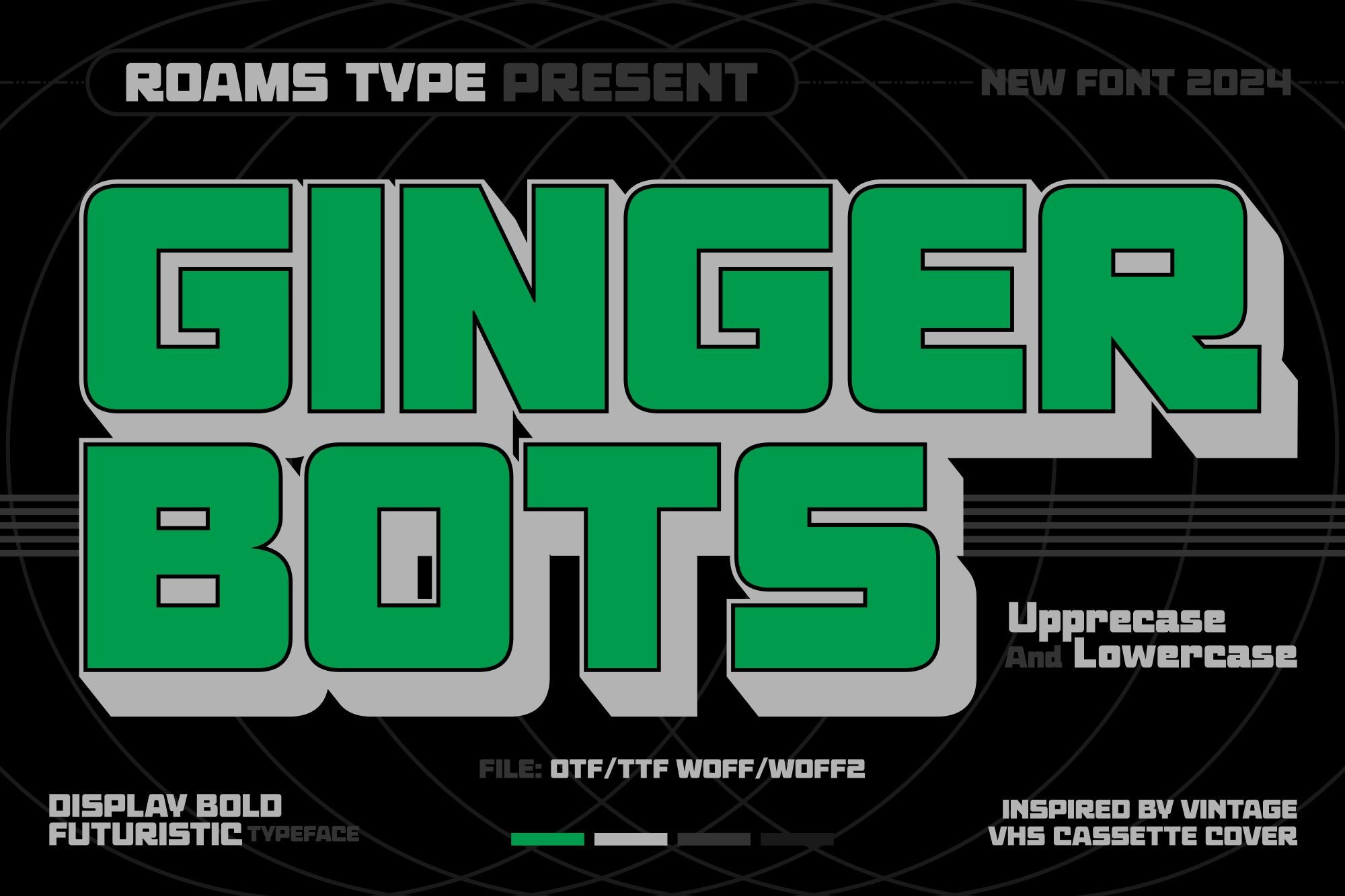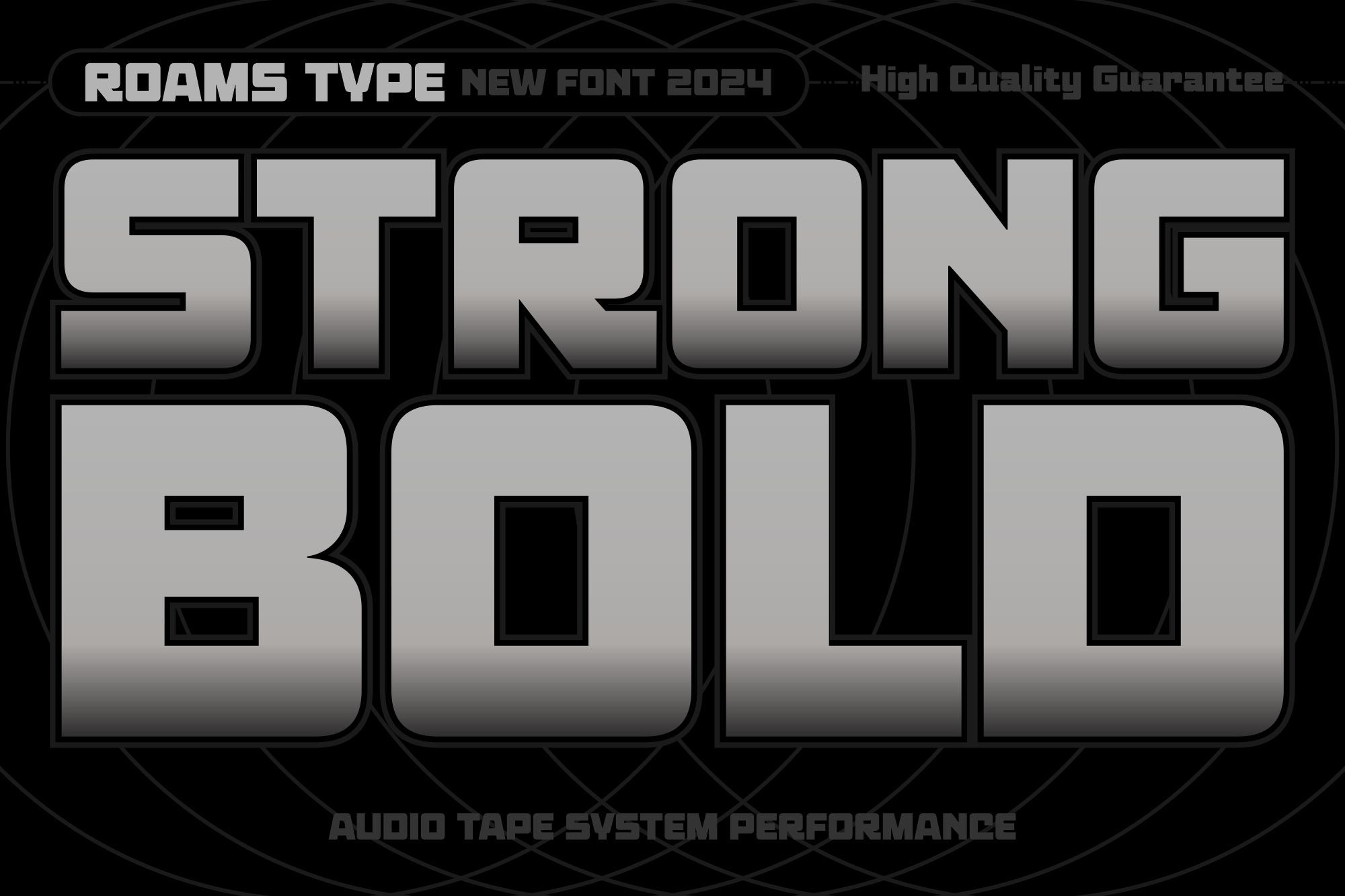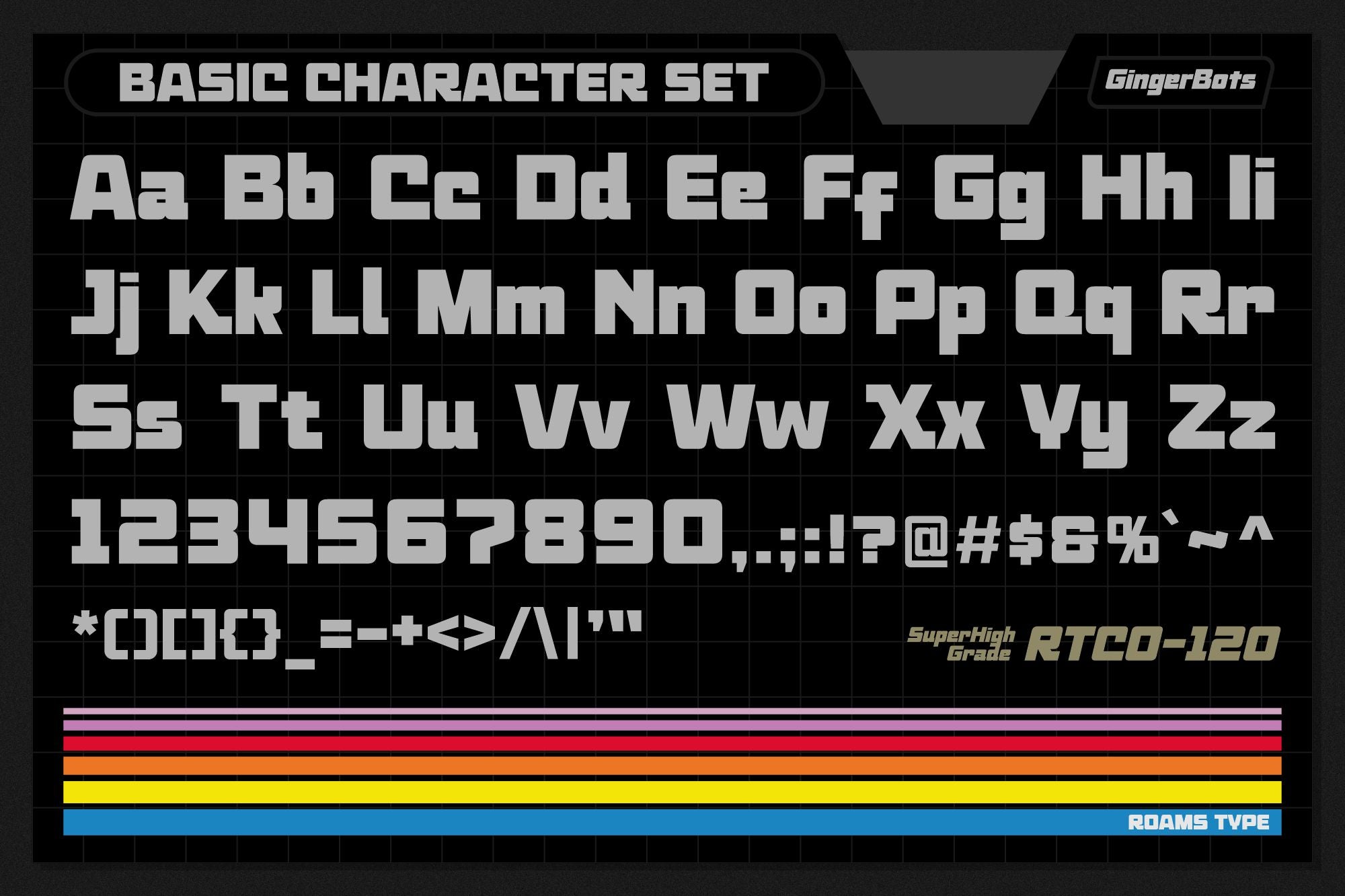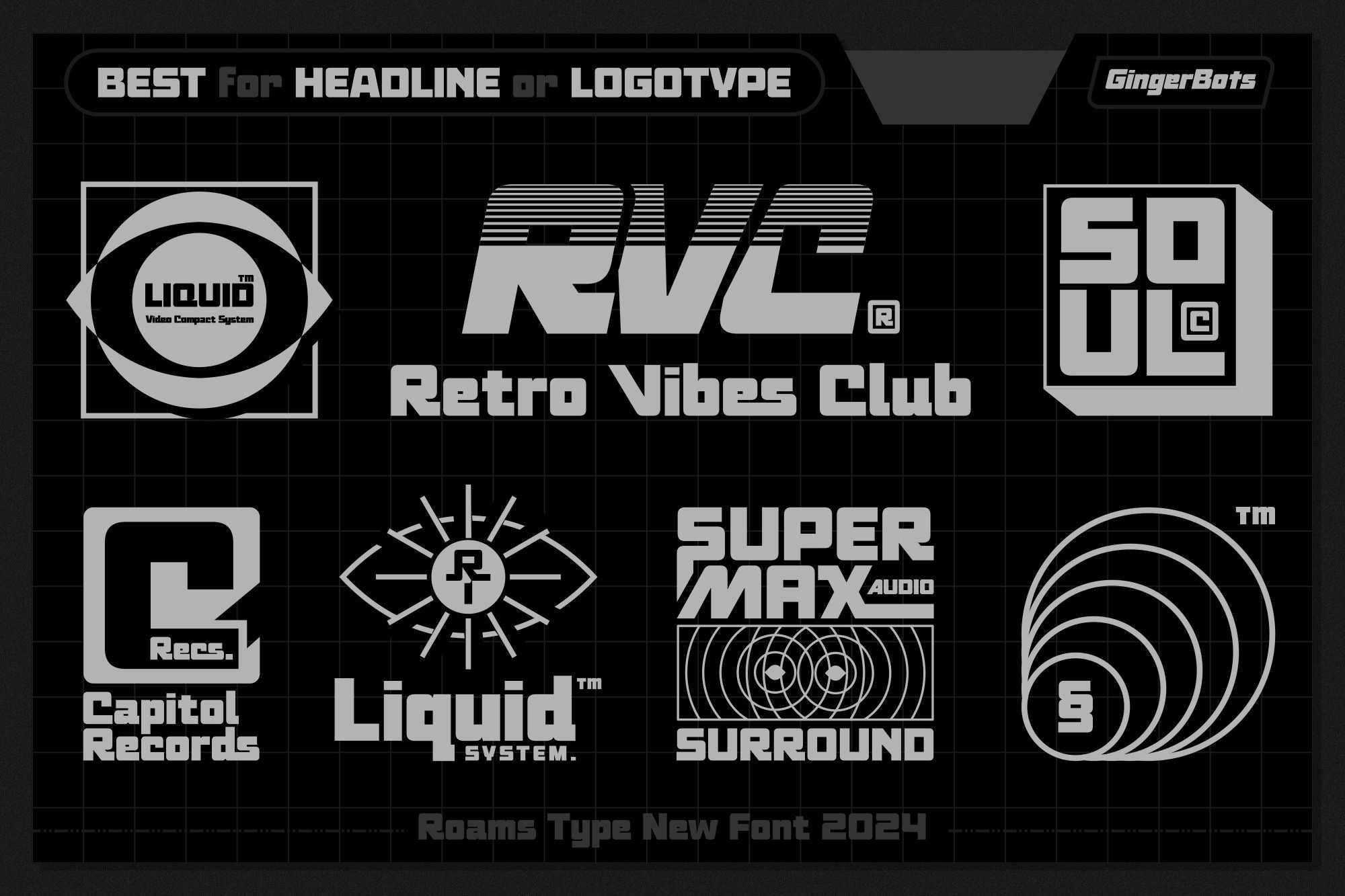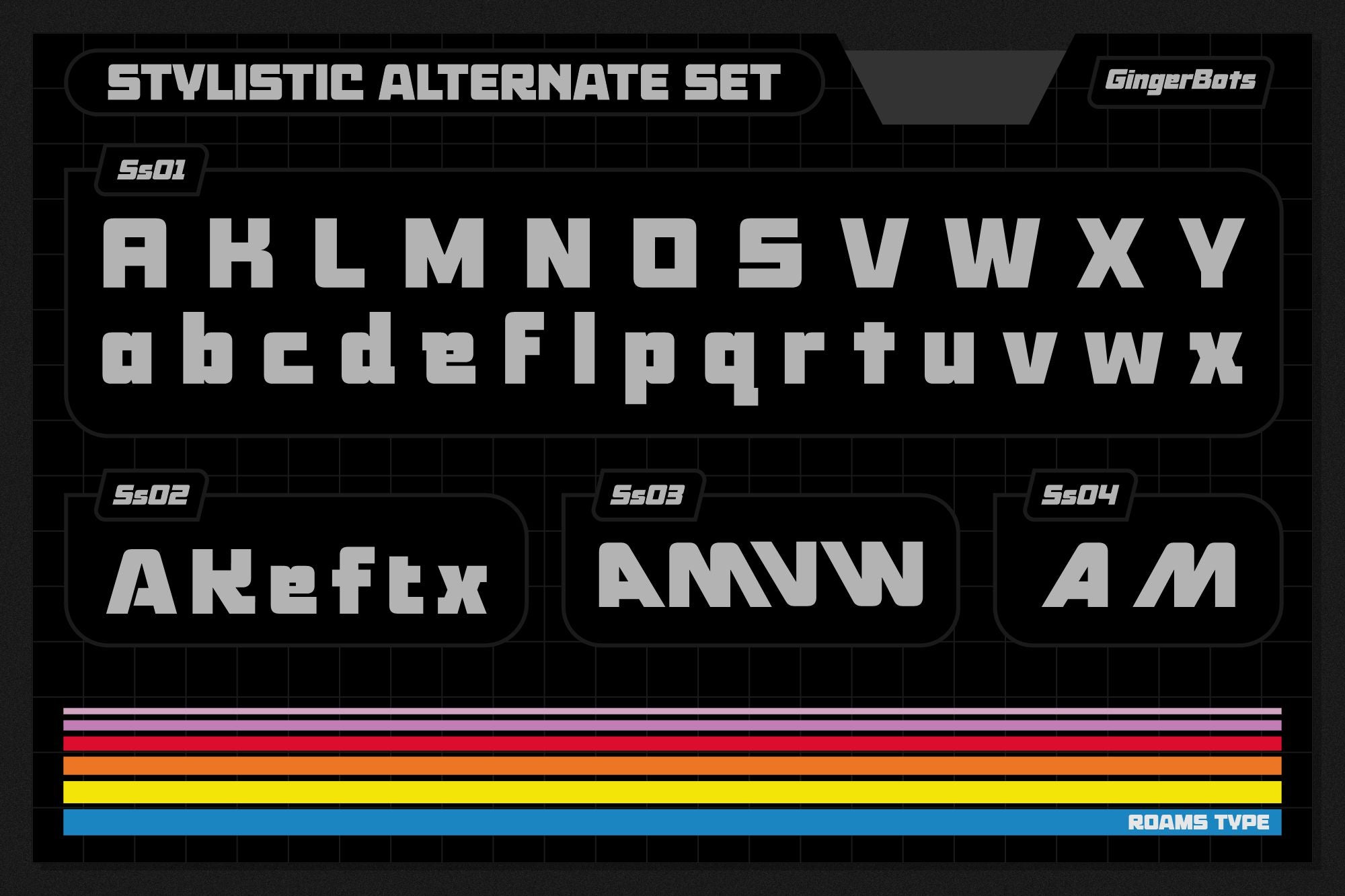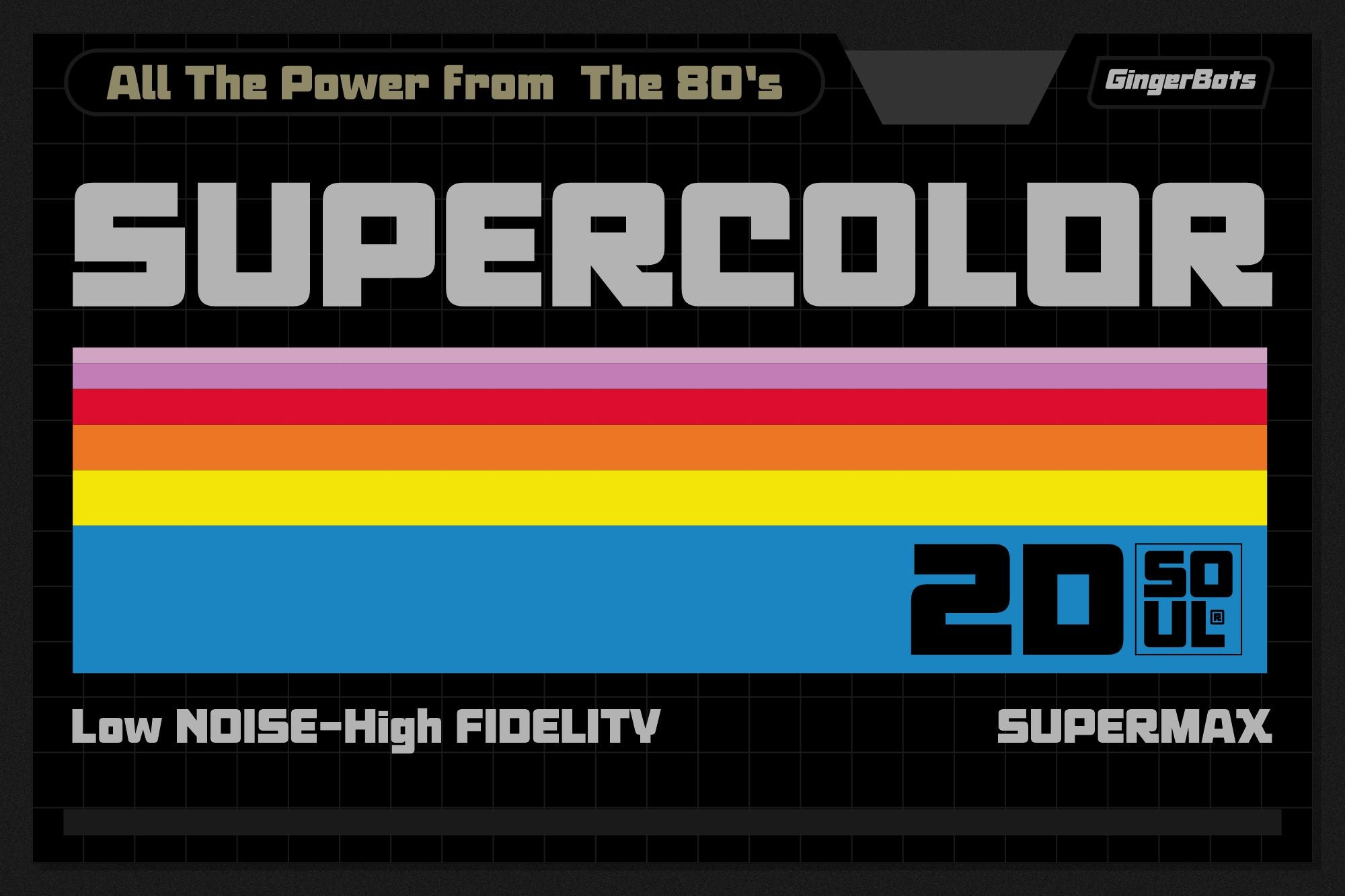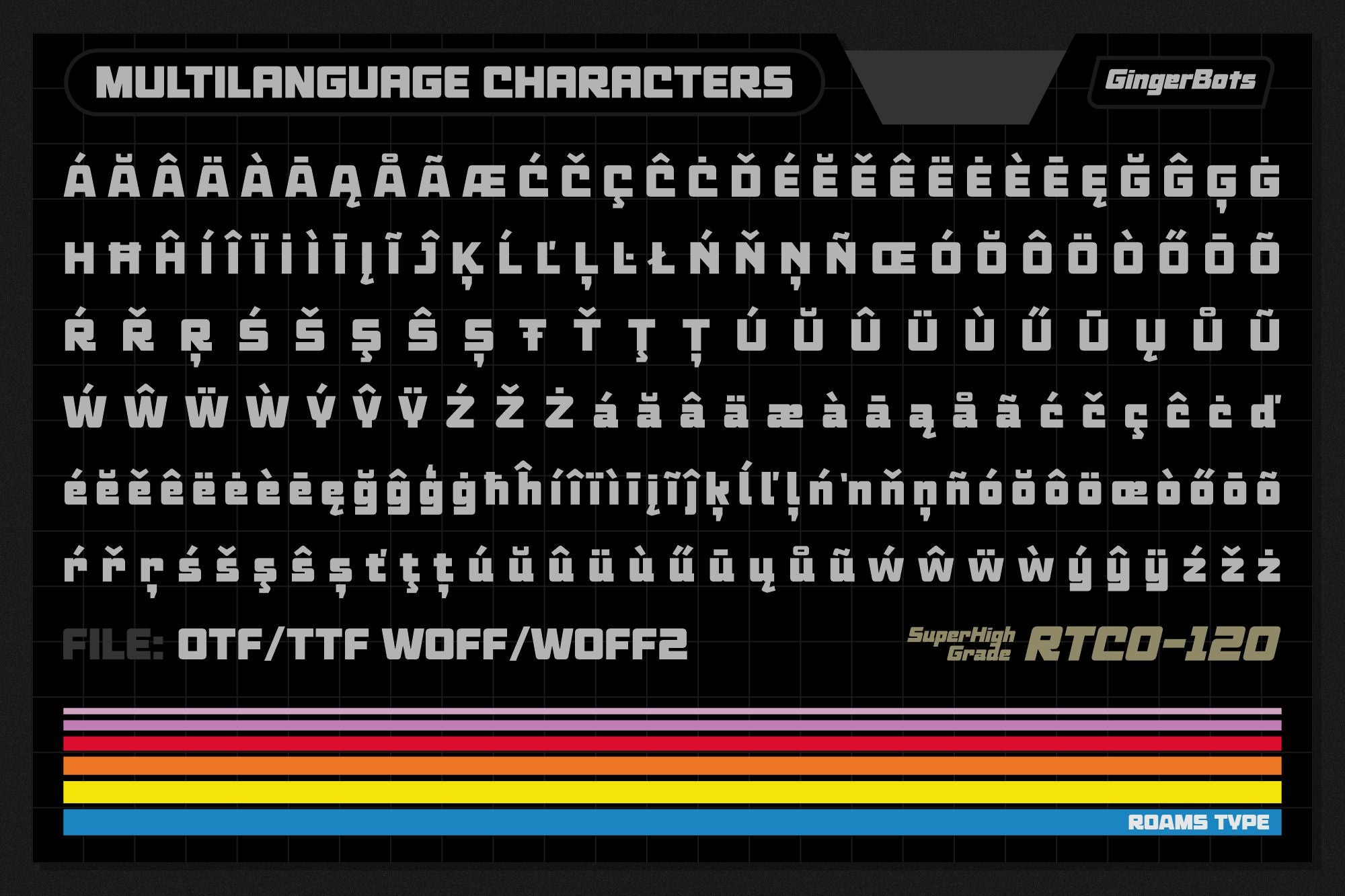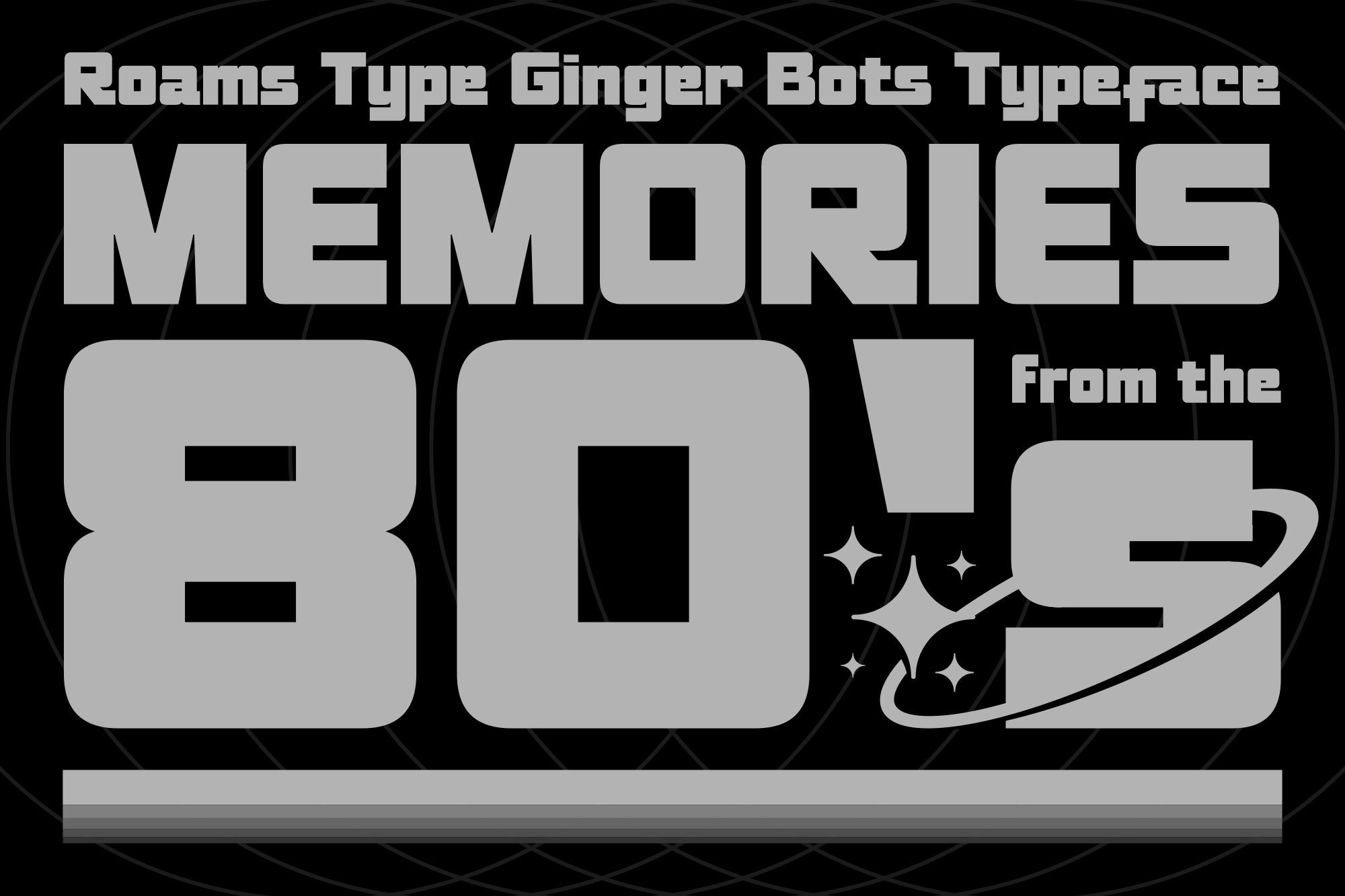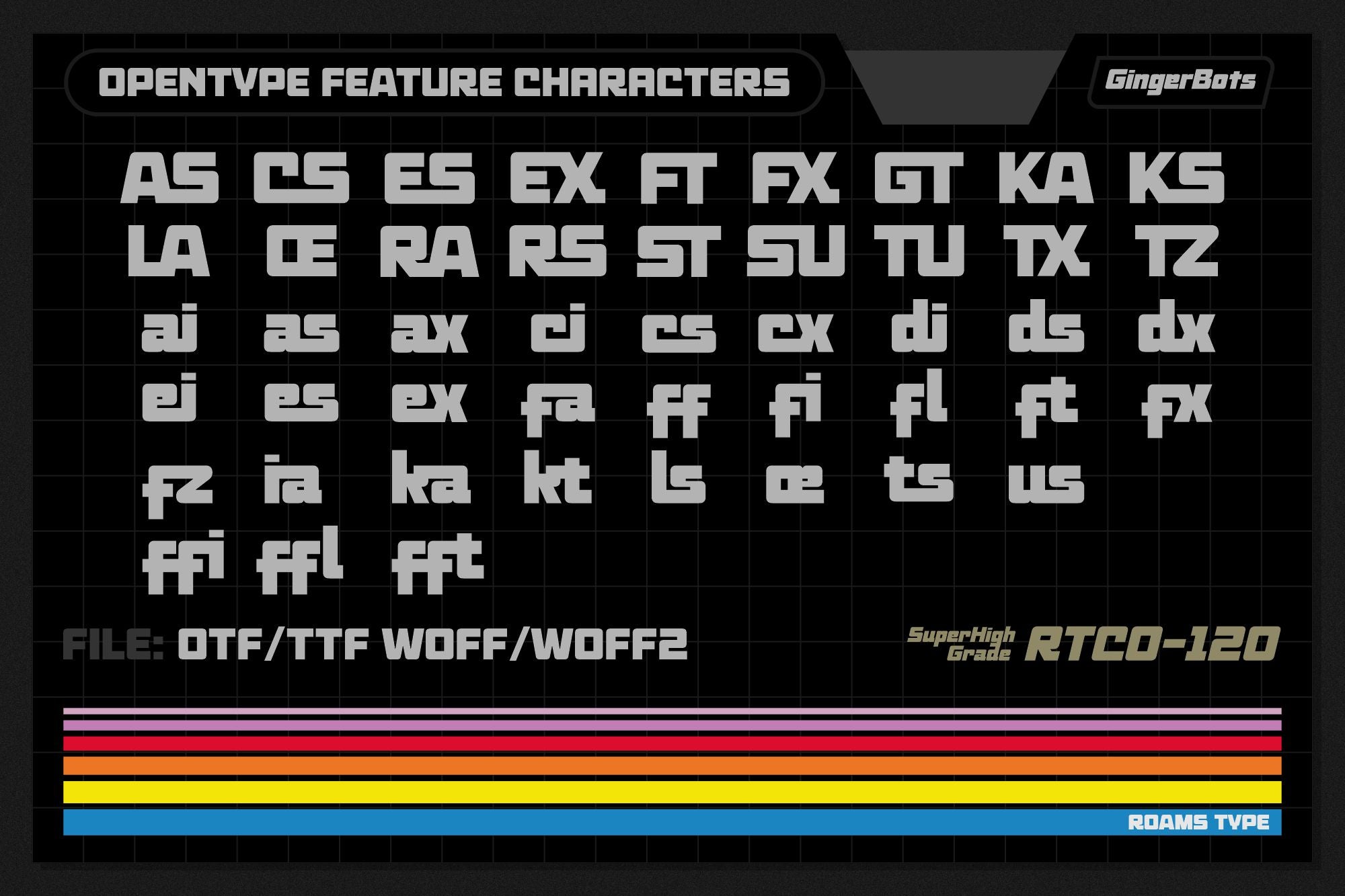
Ginger Bots - 80’s VHS Typeface
Ginger Bots Inspired by VHS Title Typography in the 80's era, with a bold and dynamic style, this font will strengthen your logo design or logo typography.
Ginger Bots is an 80's VHS-inspired typeface featuring a bold and dynamic style, designed to enhance logo design and typography. This font captures the vintage and retro aesthetic of the era, making it suitable for various design projects.